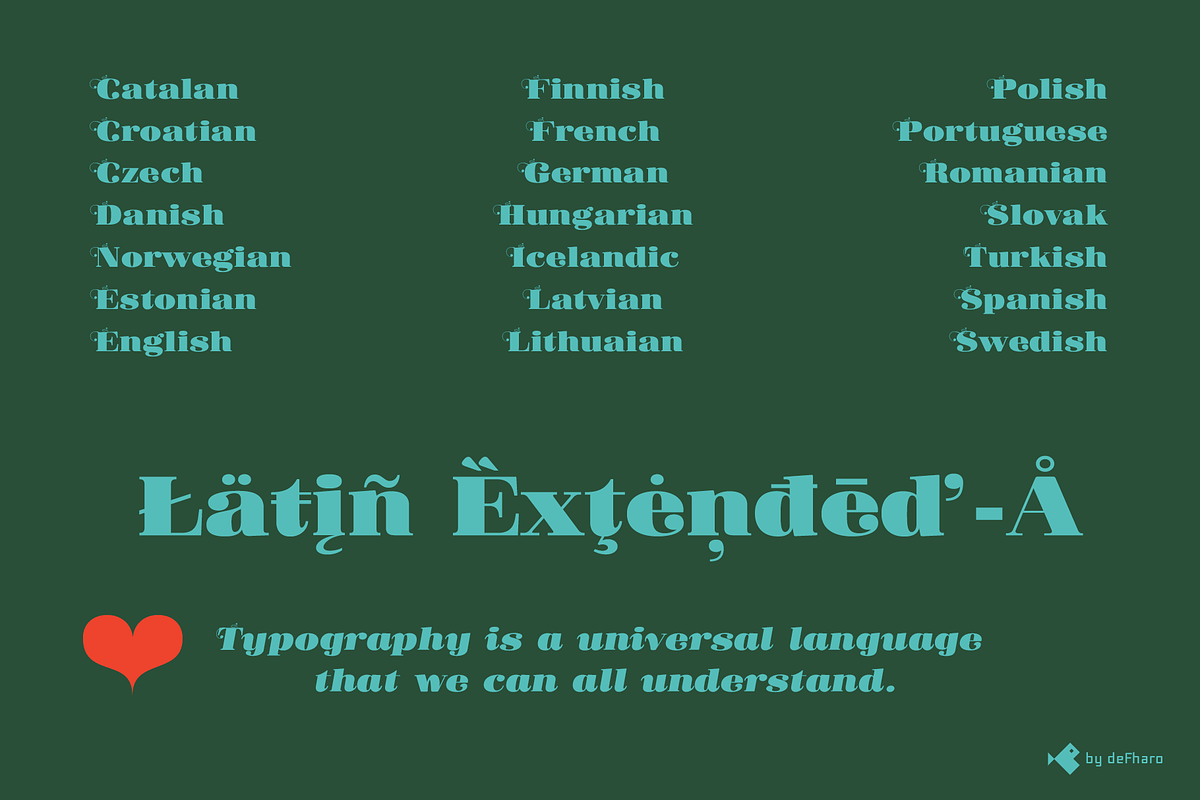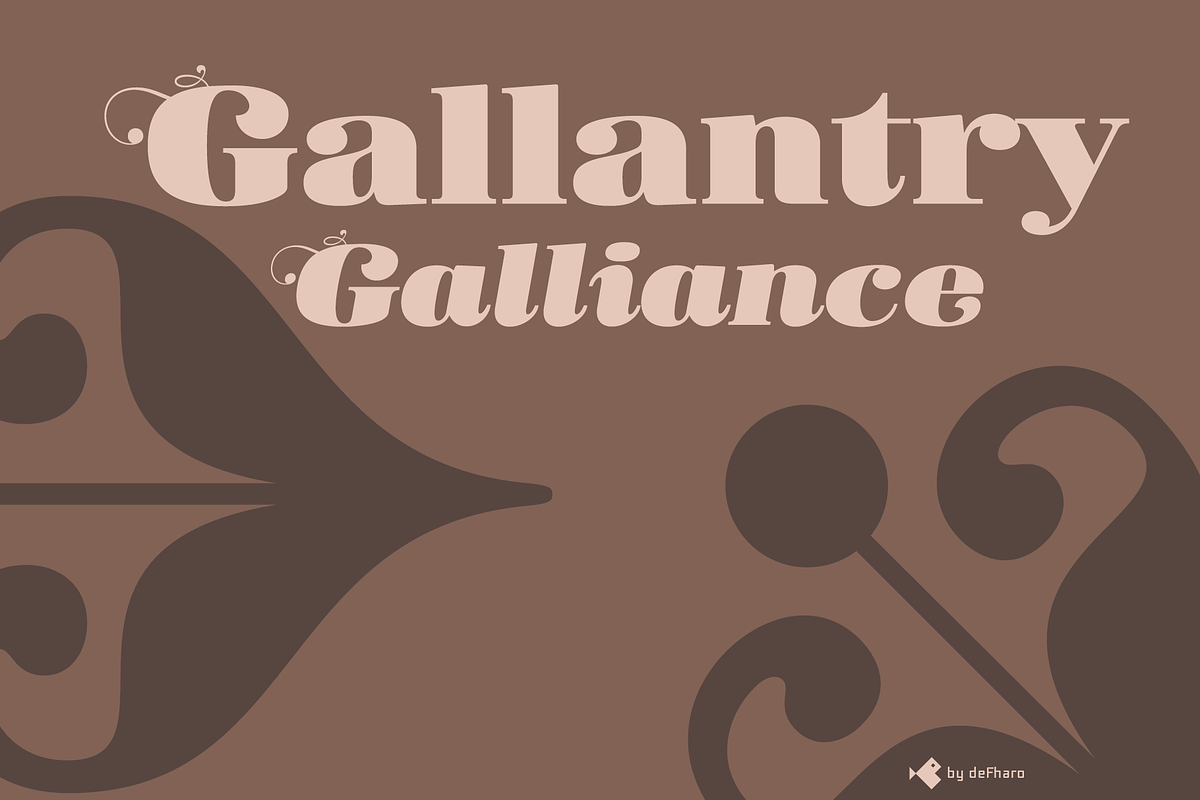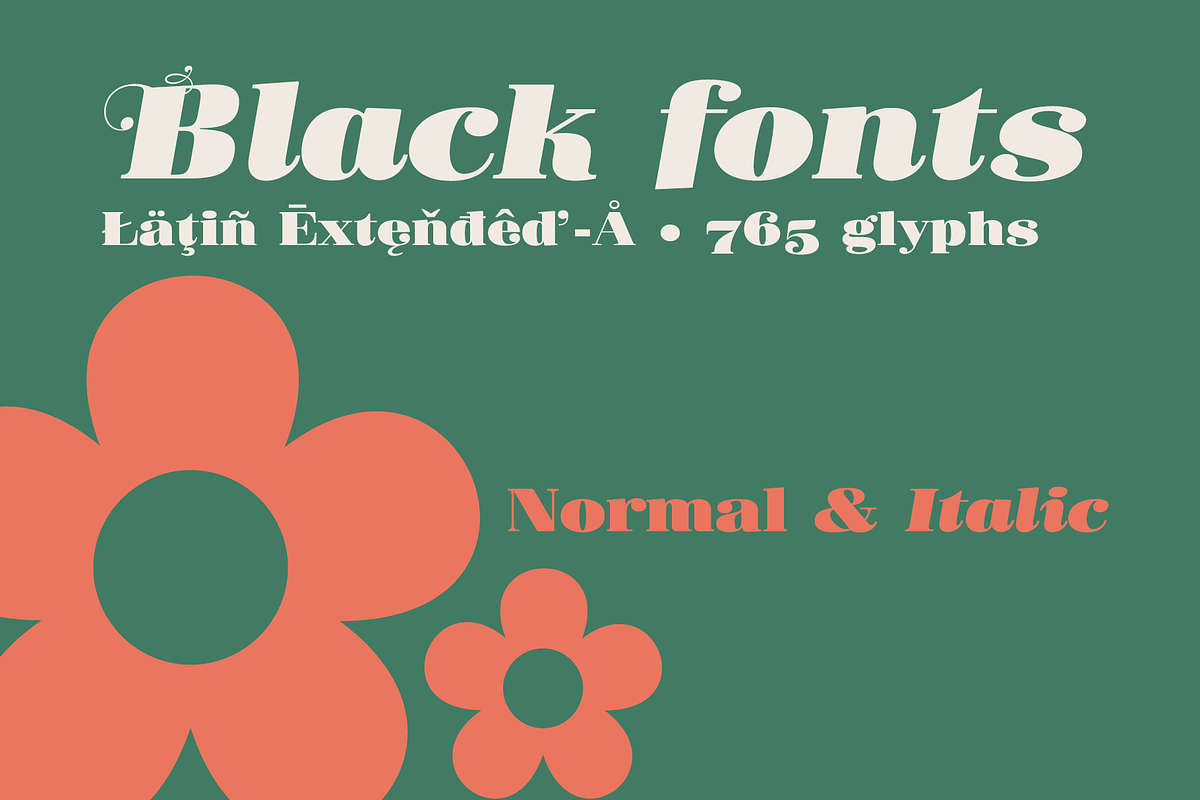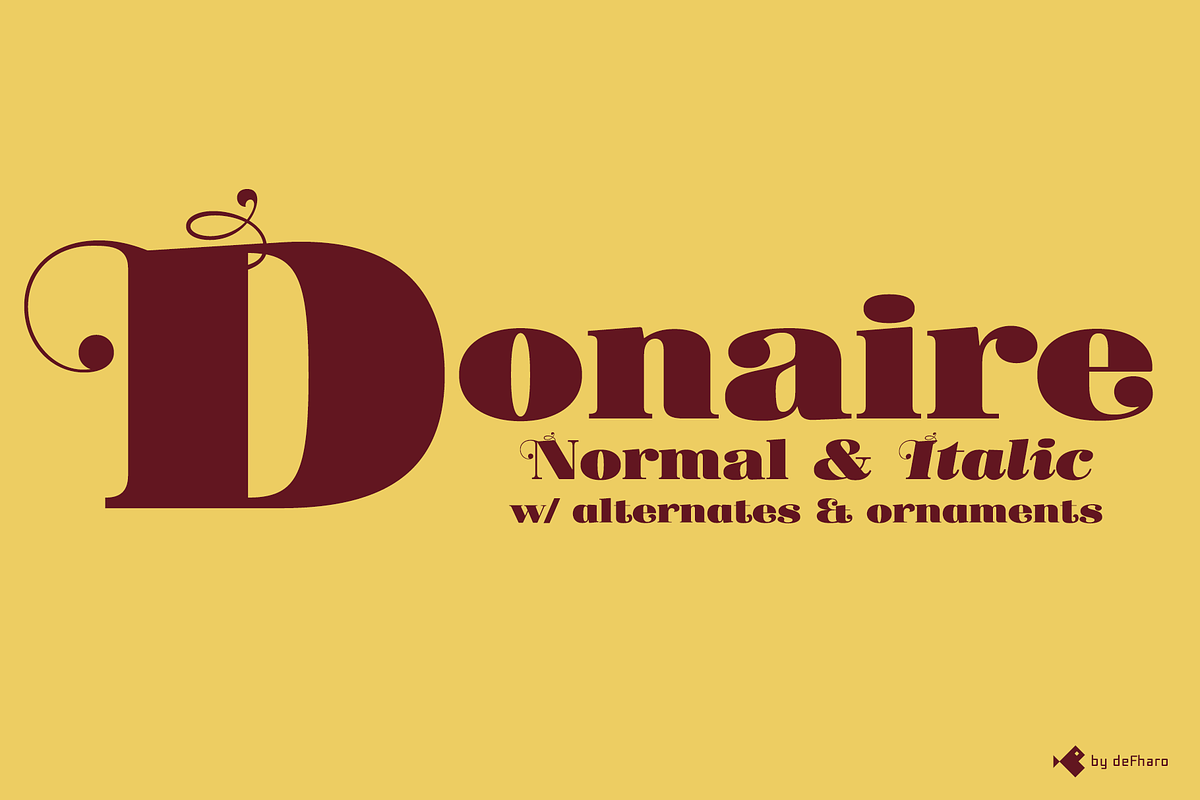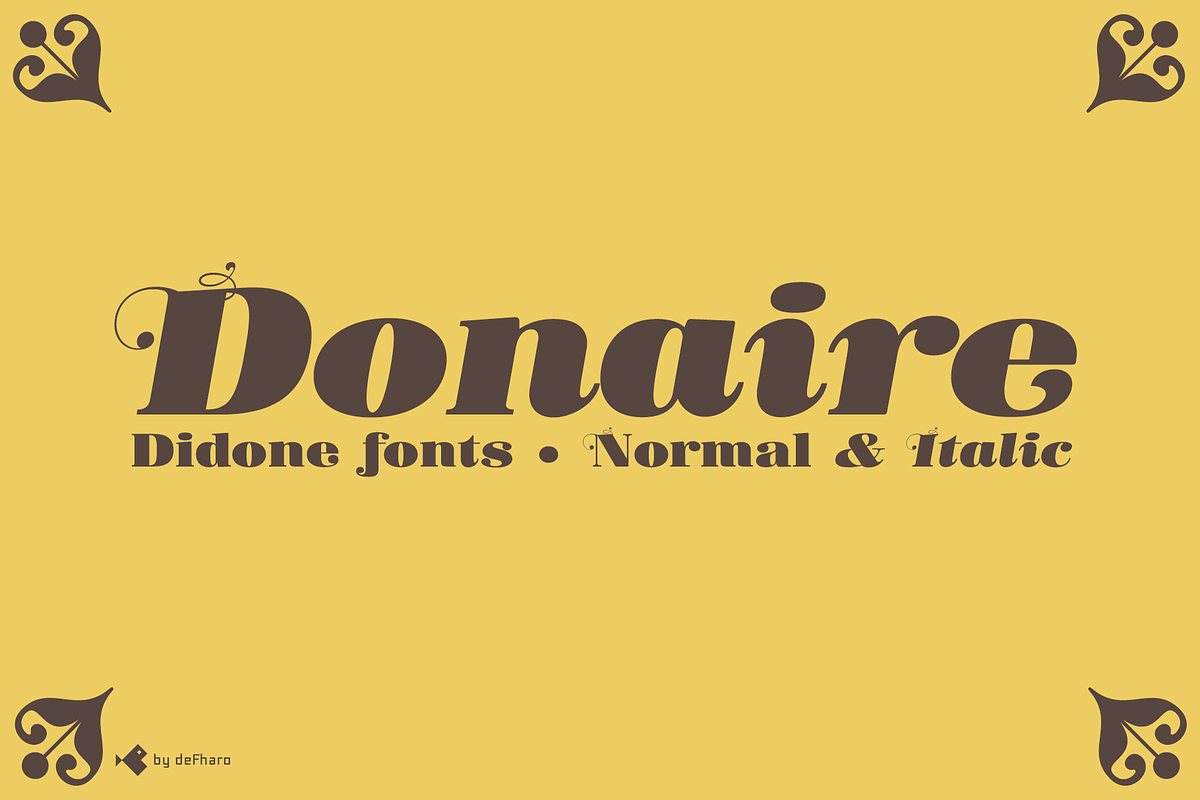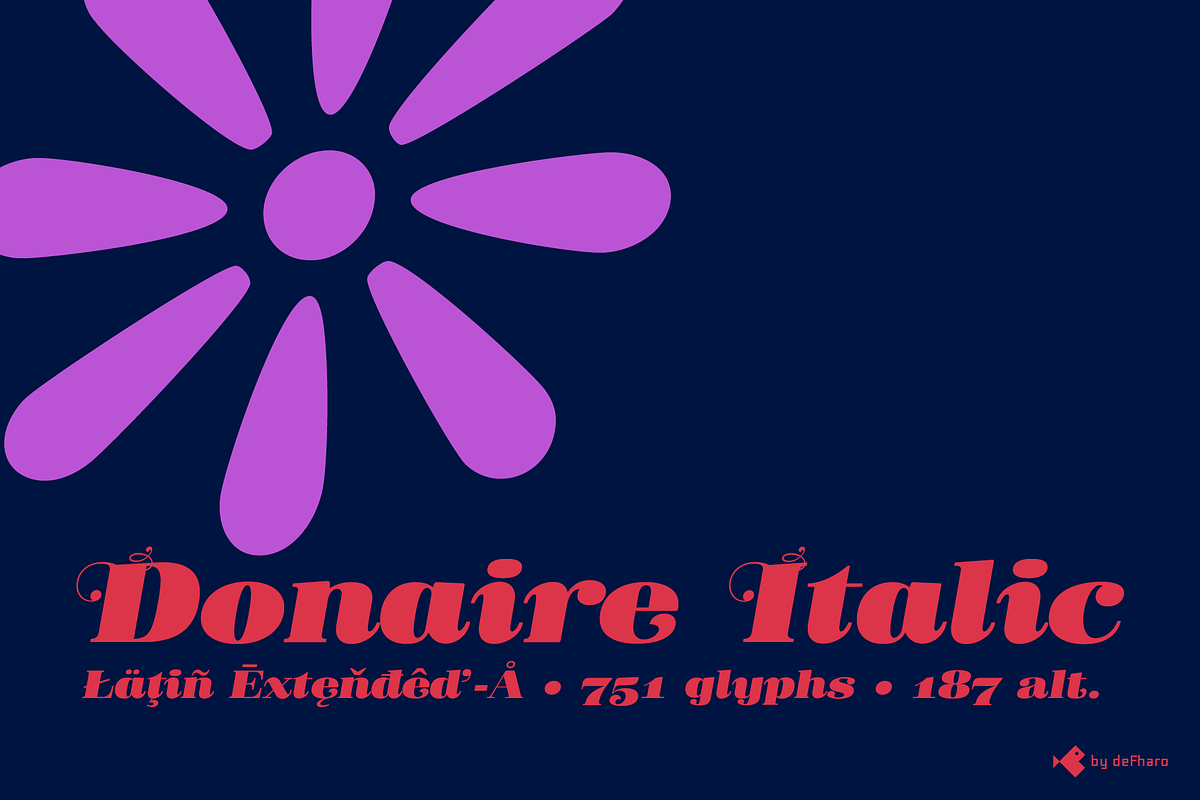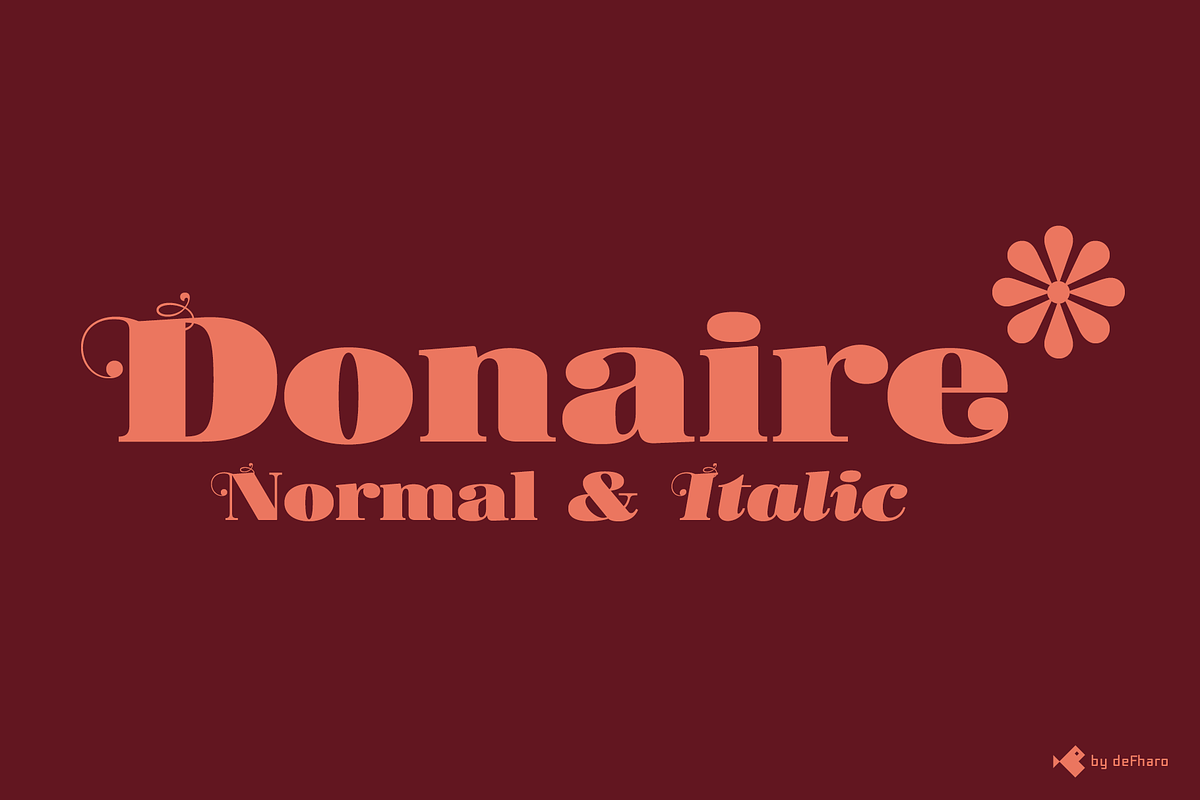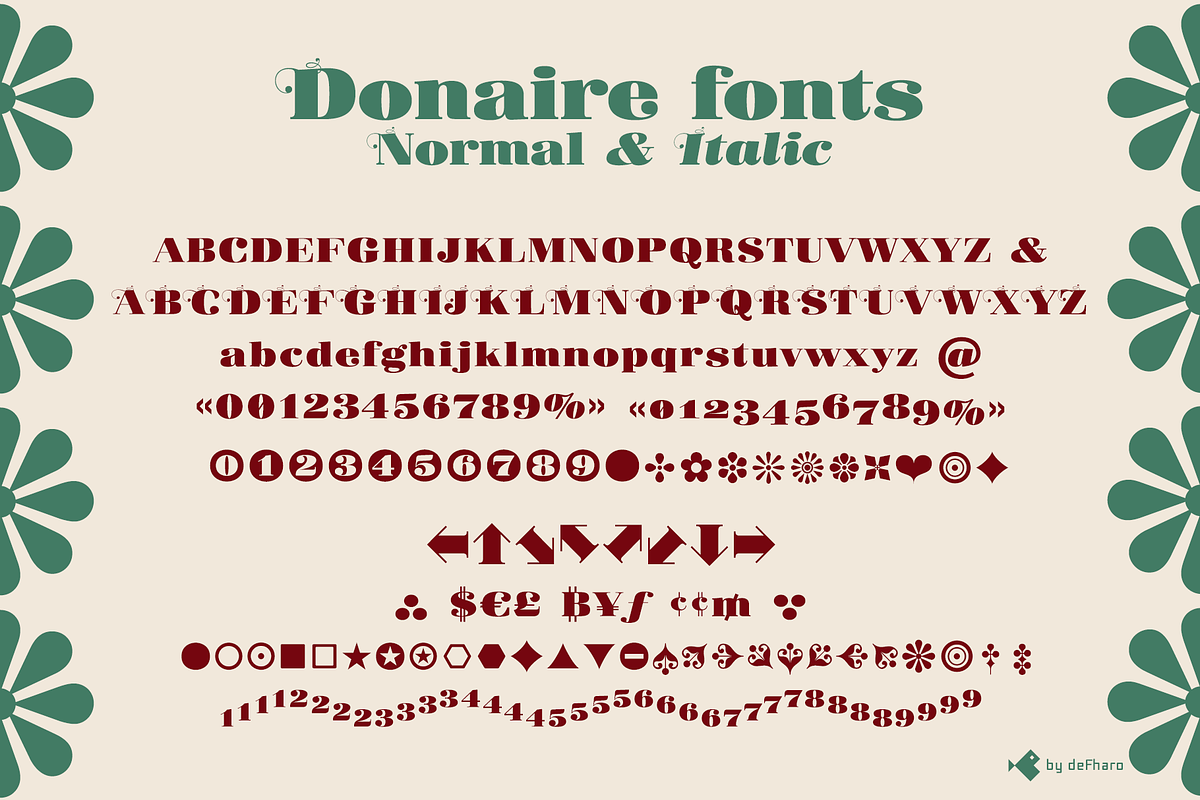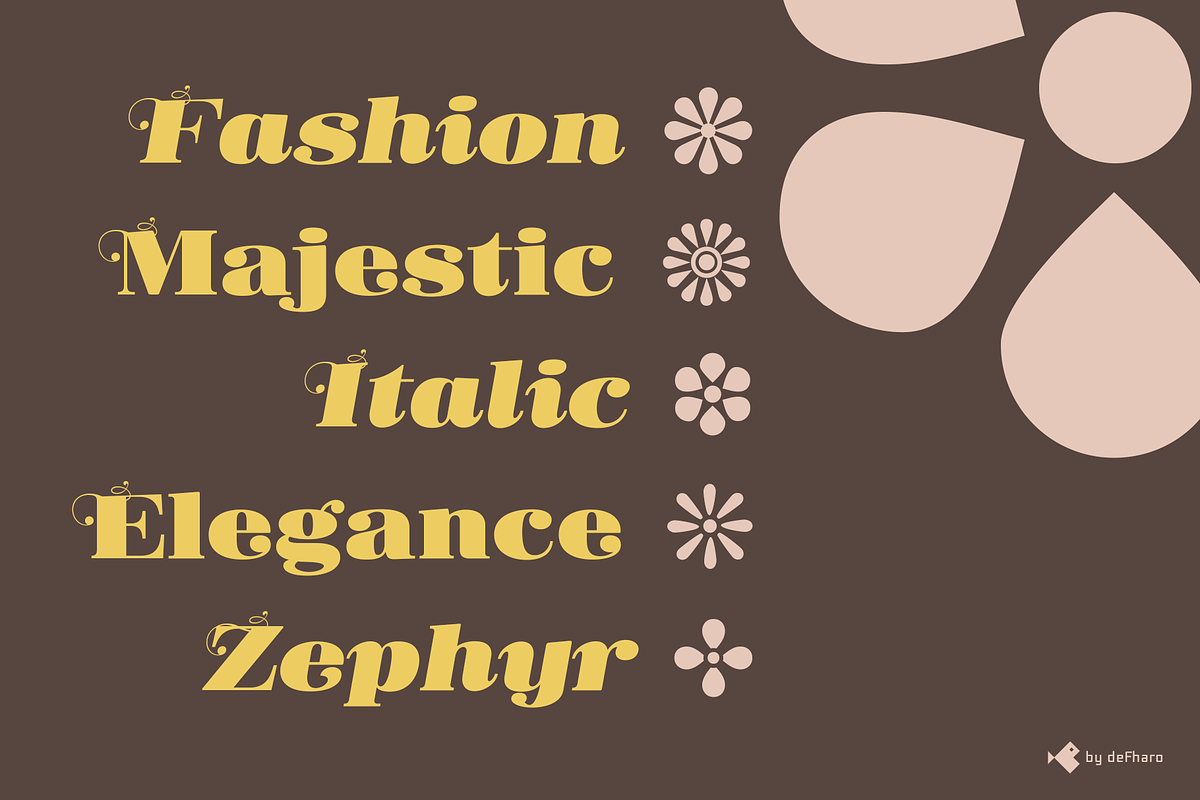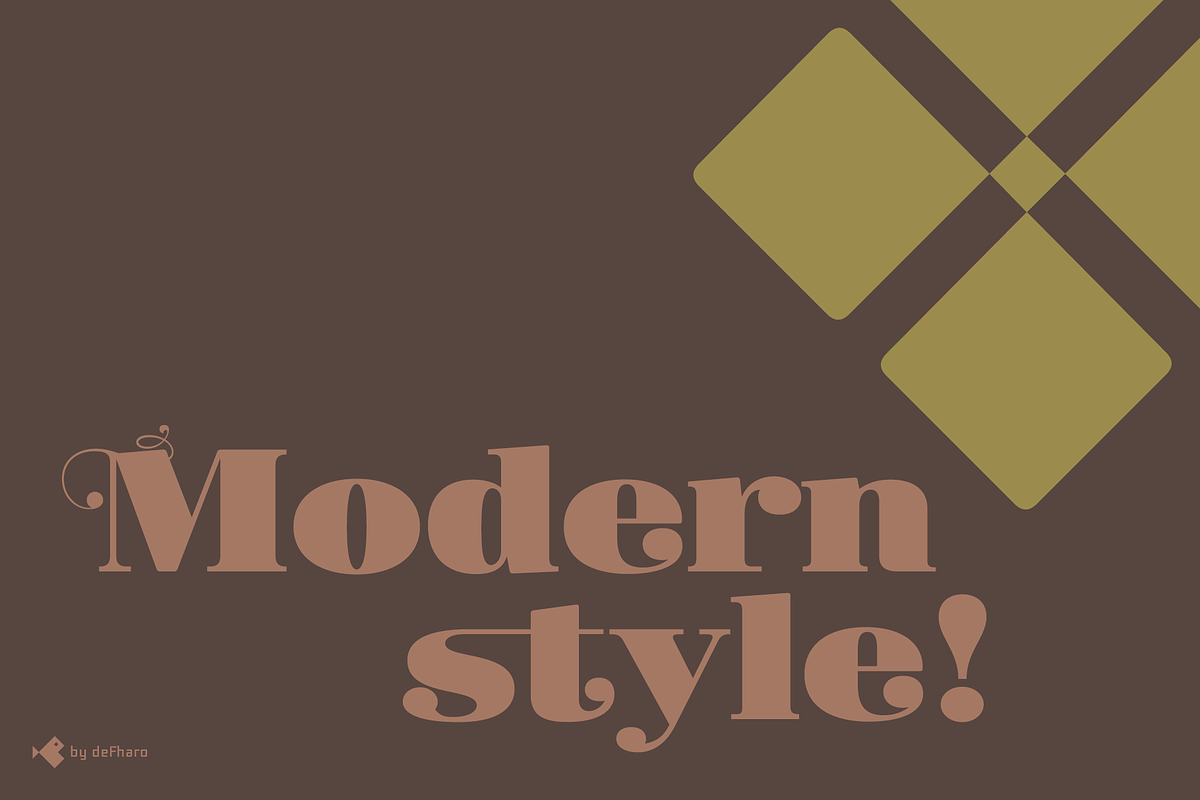
Donaire, Reg. & Italic
Donaire is my current interpretation of the classic Didonas, a modern Didona that pays homage to the elegant fat-face fonts that emerged in the late 18th century.
Inspired by modernist and historical aesthetics, I designed Donaire to capture the essence of those typefaces.
Donaire, with a square proportion, combines the visual strength of thick vertical lines and thin horizontal lines, accompanied by the delicacy of transitional serifs and teardrop endings, achieving a perfect balance between legibility and visual impact.
The font includes ornate drop caps, arrows, and other embellishments.
724 glyphs. Latin Extended-A. 186 alternates.
Donaire the symbol of Bitcoin and currency symbols.